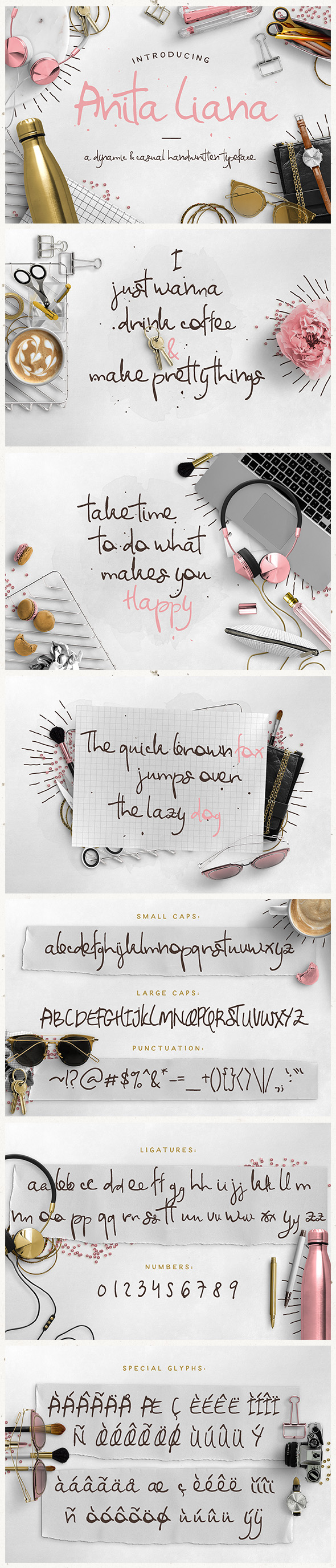
Anita Liana is a casual handwritten typeface that you can use for multiple purpose: blog, logo, title, poster, wedding cards & so forth, you decide!
Anita Liana comes with accented glyphs for international language ( check preview images to see which glyphs are included ) also a ligature feature, allows you to create different look to your design.
Anita Liana Features.
- Natural Pen Stroke
- Ligature Feature
- Hand Drawn Font
- Accented Glyphs